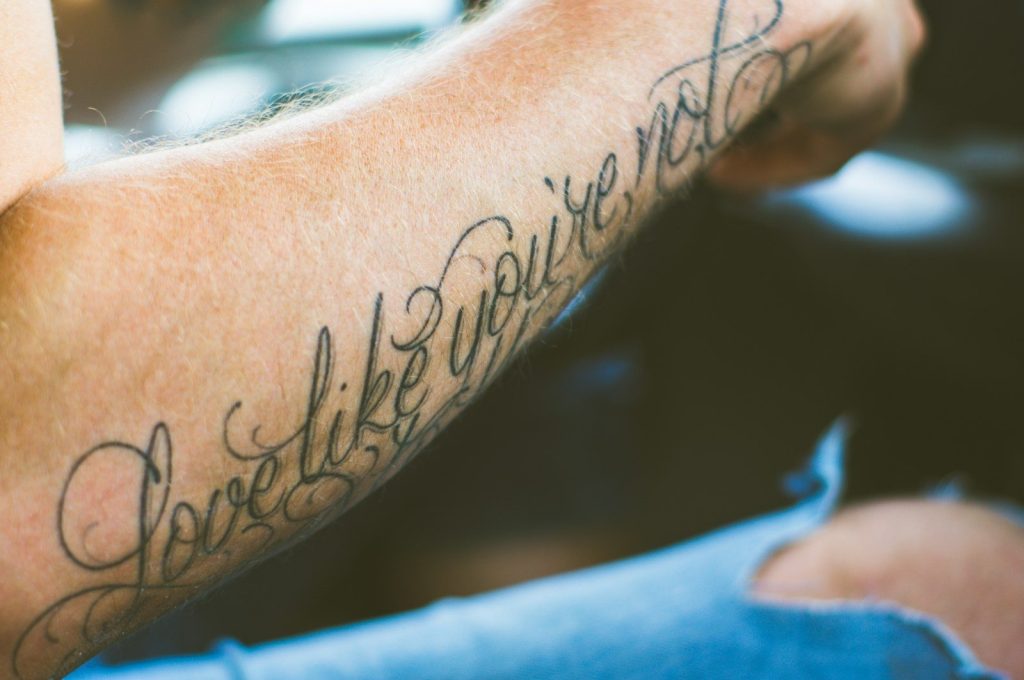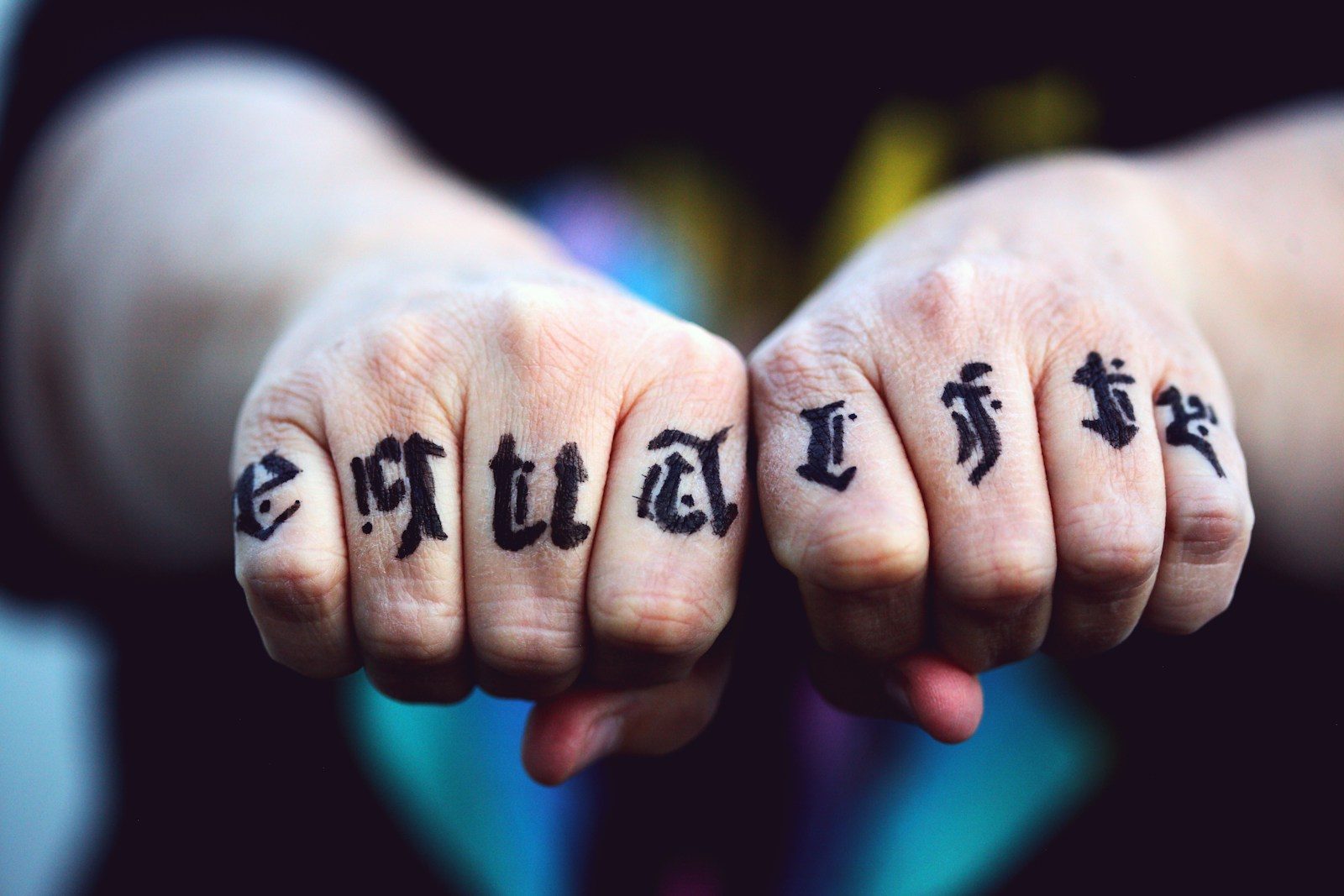
Tattoo Font Generator: Create Stunning Ink Lettering Instantly
A tattoo font generator is the smartest tool you can use before stepping into a tattoo studio. It lets you preview your chosen words or phrases in dozens of lettering styles. Therefore, you can make confident decisions about your design before committing to permanent ink.
Whether you want gothic blackletter, elegant cursive, or bold block text, a tattoo font generator gives you full creative control. Additionally, most tools require no downloads or sign-ups, making the process fast and hassle-free.
Why Use a Tattoo Font Generator?
Choosing the wrong font for a tattoo is a costly mistake. A tattoo font generator helps you visualize exactly how your text will look before it touches your skin. Furthermore, you can experiment with multiple styles in seconds, saving time and avoiding regret.
• >Adjust size and color to match your vision
• >Download or copy the design to share with your tattoo artist
• >Use it on mobile or desktop without any installation
• >Generate stencil-ready lettering for clean, professional results
Popular Tattoo Font Styles and What They Mean
Every tattoo font style carries its own personality and meaning. Choosing the right one depends on the emotion you want to express. Here is a breakdown of the most popular styles used today.
Gothic and Blackletter
Gothic fonts carry a bold, dramatic energy rooted in medieval manuscript writing. They work especially well for names, quotes, and powerful statements. As a result, gothic lettering remains one of the most requested tattoo font styles worldwide.
Cursive and Script
Cursive fonts feel personal and elegant, making them ideal for romantic quotes, loved ones’ names, or meaningful phrases. Script lettering flows naturally, which gives the tattoo a handwritten, intimate quality. However, very small script tattoos may lose readability over time.
Traditional and Sailor Fonts
Traditional tattoo fonts are inspired by old-school American tattoo culture from the early 20th century. They feature thick outlines, bold serifs, and high contrast. Therefore, they age well on the skin and stay legible for decades.
Minimalist and Clean Block Fonts
Minimalist block fonts suit people who prefer a modern, clean look. They work beautifully for single words, coordinates, or short phrases. In contrast to gothic styles, block fonts feel understated and contemporary.
How to Use a Tattoo Font Generator Effectively
Using a tattoo font generator is simple, but a few smart steps will give you the best results. Follow this process to move from idea to final design quickly.
1. Type your text:
2. >Browse font styles: Preview your text across gothic, cursive, tribal, and script options simultaneously
3. >Adjust settings: Modify size, color, and spacing to match your body placement
4. >Copy or download: Save the result to share with your tattoo artist directly
5. >Test readability: Avoid overly detailed fonts for small tattoo placements
Tattoo Font Generator Tips for Better Designs
Getting the most from a tattoo font generator means thinking beyond just picking a pretty style. Additionally, placement, size, and skin tone all affect how a font looks once inked.
• Consider placement:
• >Think long term: Fine-line and thin fonts may blur after years on the skin; bolder fonts age more gracefully
• >Test on paper first: Print your generated design at actual size to check proportions before your appointment
• >Match font mood to message: A cheerful quote suits a script font; a powerful mantra suits gothic blackletter
• >Check letter spacing: Tight kerning can cause letters to bleed together as the tattoo heals
Tattoo Font Generator for Names and Quotes
Names and quotes are by far the most common tattoo text choices. A tattoo font generator makes it easy to test how a loved one’s name looks in different styles side by side. For example, a name in Chicano lettering feels very different from the same name in a delicate calligraphy script.
Quotes require extra attention to length and readability. Therefore, always test your full quote in the generator before choosing a font. Long phrases in overly decorative fonts can become difficult to read, especially at smaller sizes.
Free vs. Premium Tattoo Font Generators
Most online tattoo font generators offer a solid free experience with dozens of styles to explore. Free tools typically include gothic, cursive, tribal, and script options with basic customization. However, premium tools often add features like AI-powered style suggestions, advanced color palettes, and high-resolution downloads.
• >Share the digital file directly with your artist so they can trace or stencil accurately
• >Ask your artist which fonts hold up best on your specific skin type
• >Avoid making last-minute font changes on the day of your appointment
A tattoo font generator removes the guesswork from one of life’s most permanent decisions. It bridges the gap between your creative idea and the artist’s needle. Therefore, taking 10 minutes with a quality generator is one of the smartest steps any tattoo enthusiast can take before getting inked.